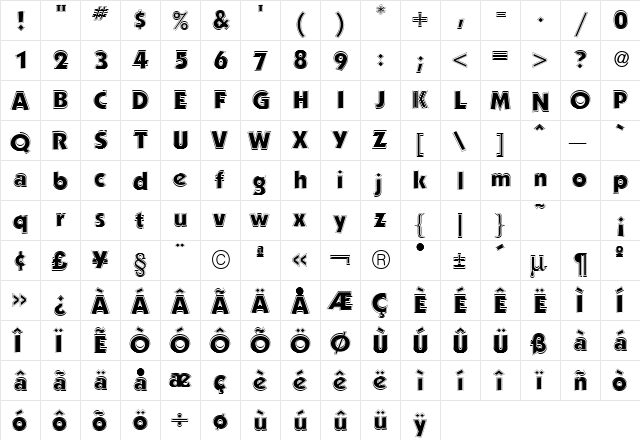
Performa Outline SSi Outline
Design Context for Performa Outline SSi Typeface
Performa Outline SSi brings ornamental detail and strong personality to headlines and identities, where visual impact matters more than quiet functionality.
Font Pairing: Pair with a clean neutral sans-serif for body copy to let Performa Outline SSi's character lead without overwhelming the composition.
Pro Tip: Treat Performa Outline SSi as the centrepiece of your typographic hierarchy. One strong heading set in a decorative face can carry an entire layout.